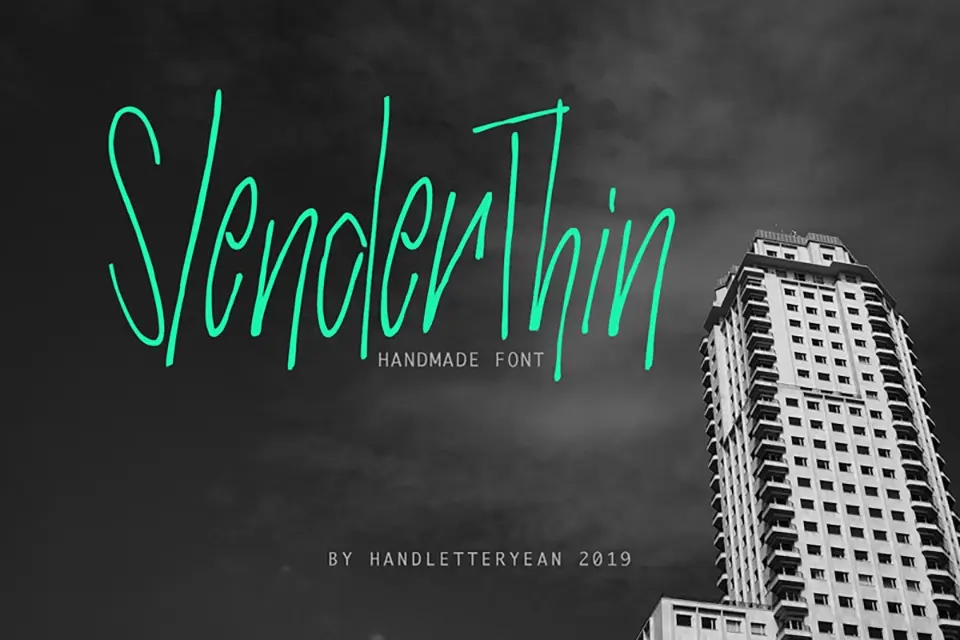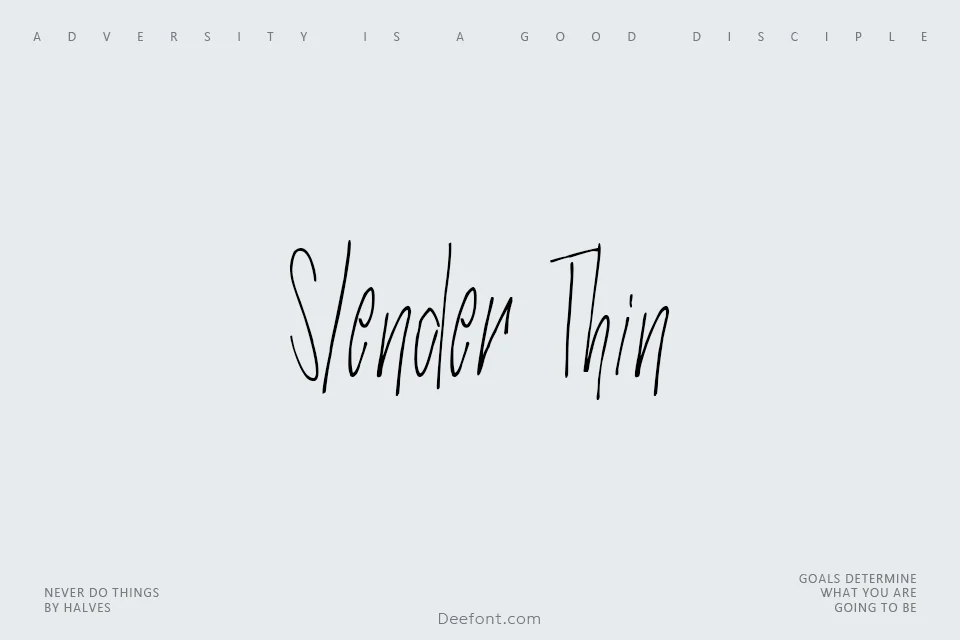
Slender Thin Font
Slender Thin is an elegant and refined script font that combines smooth flowing strokes with a distinctive thin weight, creating a sophisticated and modern handwritten aesthetic. Perfect for elegant invitations, branding materials, logos, and creative typography projects, this versatile font brings grace and personality to any design. The delicate letterforms showcase expressive handwritten characteristics with polished elegance, making it ideal for wedding designs, greeting cards, and premium branding. With its unique blend of fluidity and contemporary minimalism, Slender Thin transforms text into an artistic statement.